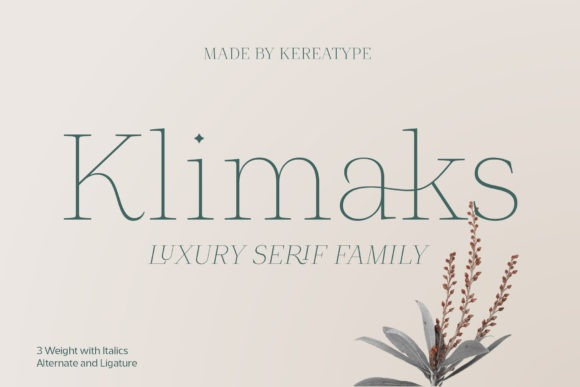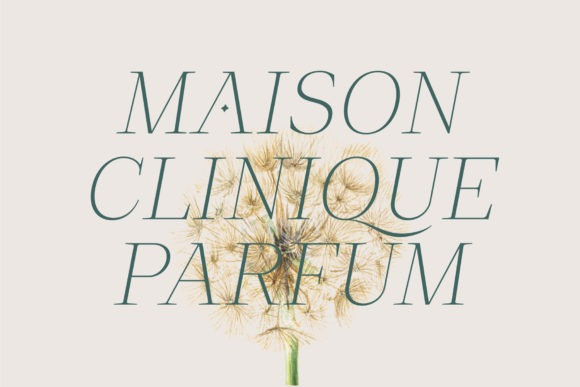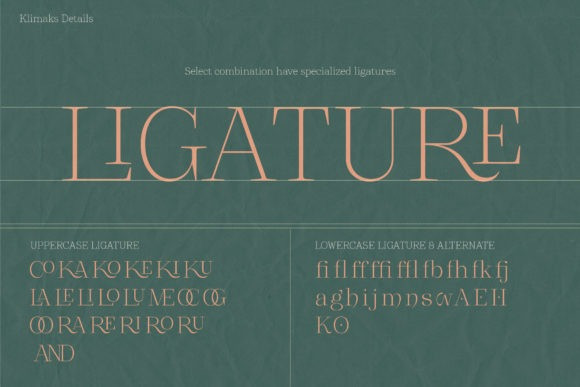
Klimaks Font
Klimaks is a slim and delicate serif font. It is perfect for product packaging, branding project, magazine covers, social media, wedding, or just used to express words above the background.